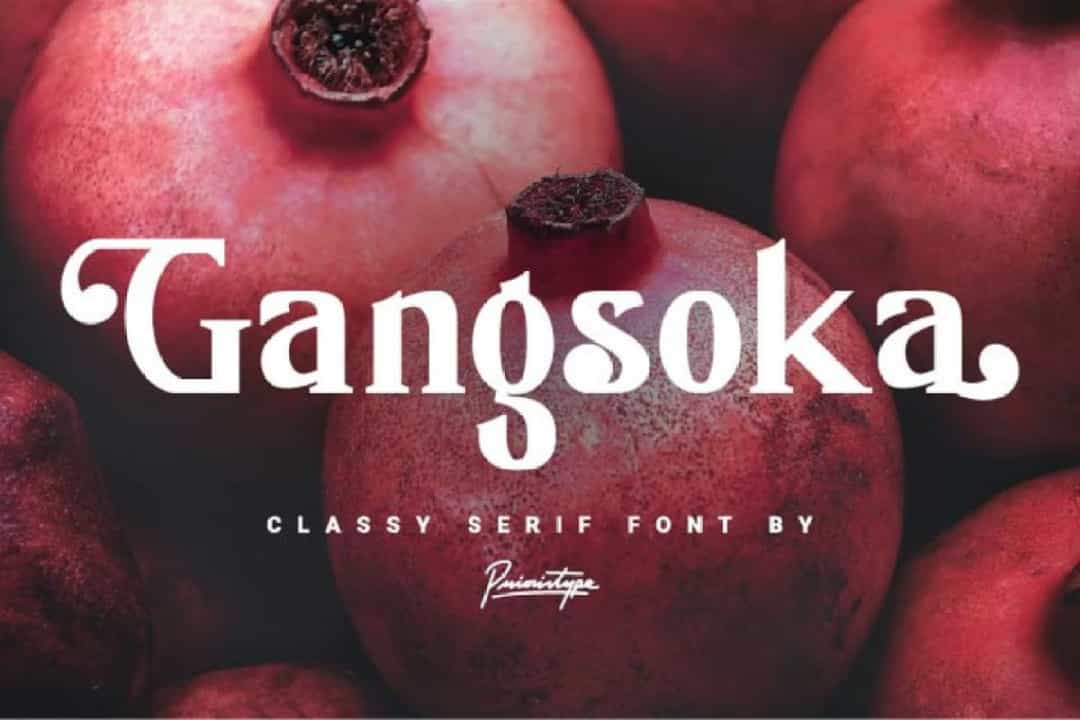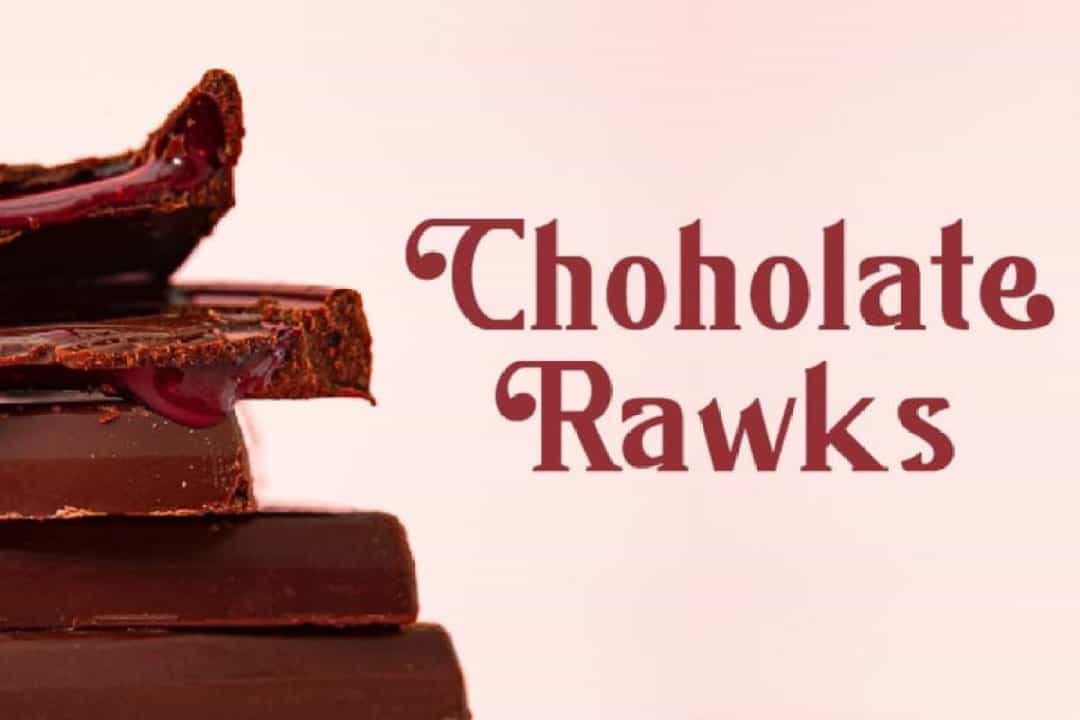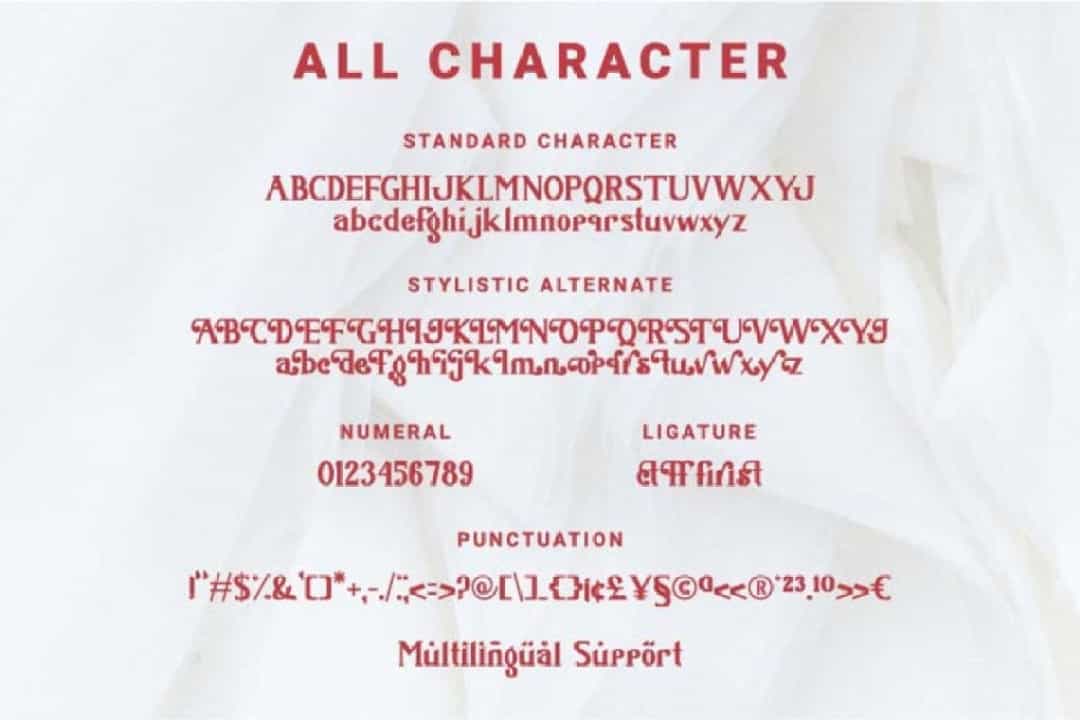
Discover Gangsoka Classy Serif Font, part of the Serif Basic collection—a versatile and unique font perfect for adding a personal touch to your projects. Download it for free and enjoy crafting designs with style, from invitations to social media posts. This font is available exclusively for personal use, giving you the freedom to create without limits. Unlock your creativity with Gangsoka Classy Serif Font today!
Gangsoka is a beautiful font that has multilingual support and many other great font styles for any of your projects. For logo designing, apparel packaging, store merchandise, clothing items and artwork or other purposes, use Gangsoka.